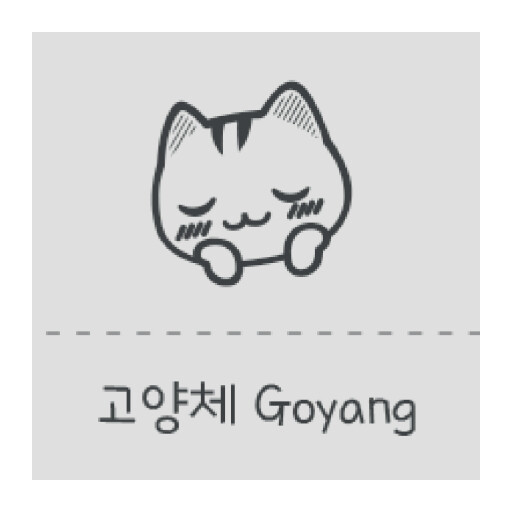
Gy Cat Korean font (Font, typeface, font)
It is a typeface that emotionally shows the image of Goyang-shi, which is not authoritative and friendly, pressed down by hand.